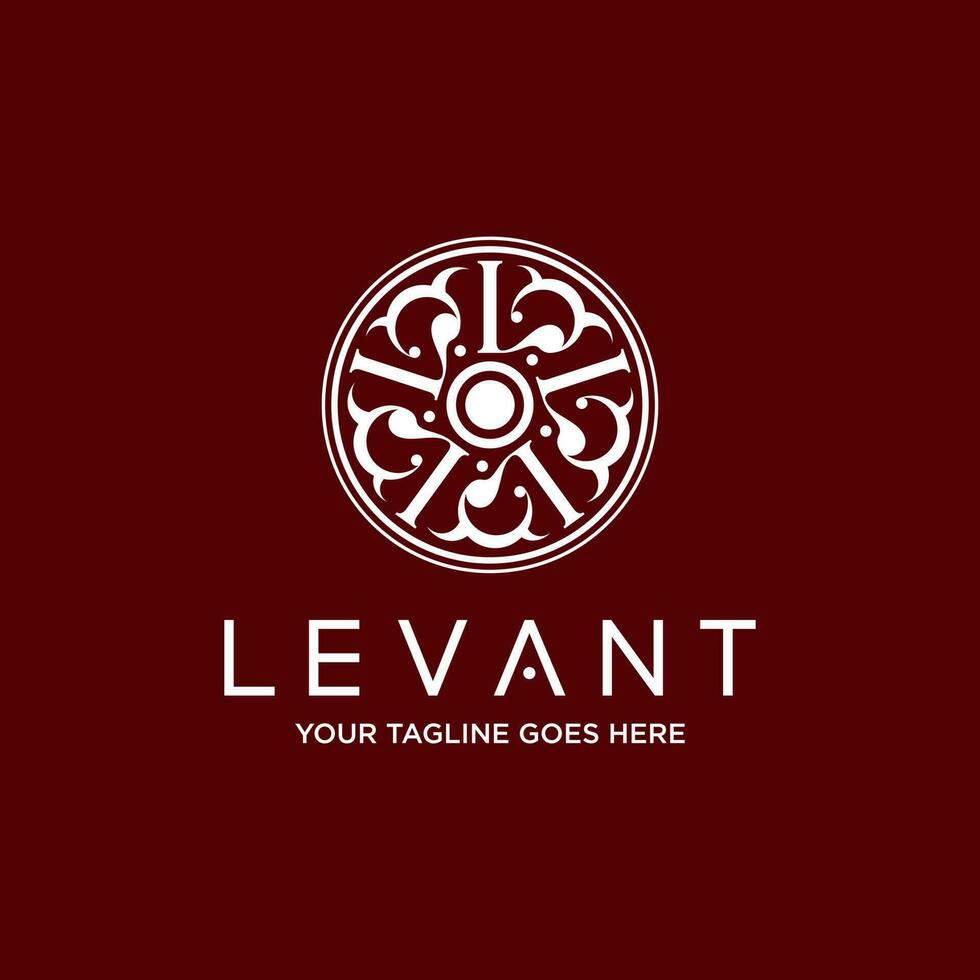
Letter or word L carving font on circle around like Motif image graphic icon logo design abstract concept vector stock. Can be used as a symbol related to initial or interior. Pro Vector